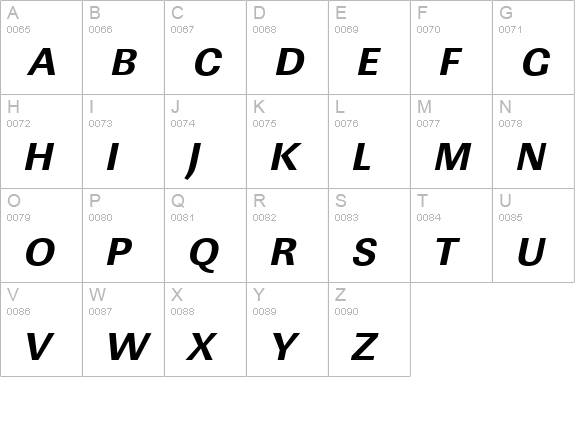
LinearStd-Xbold-Italic is a distinctive, italic variant in the LinearStd typeface family \xE2\x80\x94 well suited to design and typography projects.
LinearStd-Xbold-Italic is a striking and bold font that exudes confidence and modernity. Its sharp angles and sleek design give it a powerful presence, making it perfect for headlines, titles, and other attention-grabbing text. The italic style adds a touch of elegance and sophistication, making it a versatile choice for a wide range of design projects. The best part? LinearStd-Xbold-Italic is available for free download at FontsMarket.com. This means you can add this impressive font to your collection without breaking the bank. Whether you're a professional designer looking to elevate your work or a hobbyist looking to experiment with new fonts, LinearStd-Xbold-Italic is a must-have addition to your toolkit. Download it today and make a bold statement with your typography!